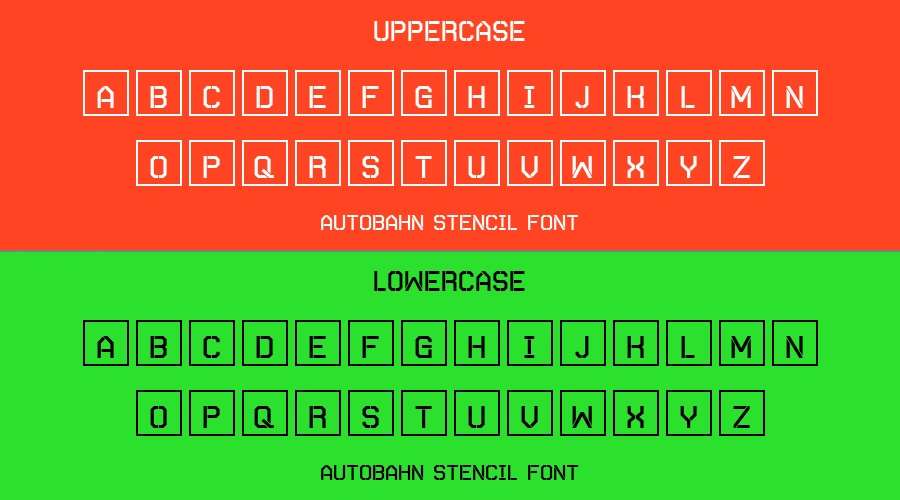
About Autobahn Stencil Font
Designed with precision, Autobahn Stencil Font merges convex bowls with design harmony in every character. This versatility makes it particularly effective for digital interfaces, where clarity and visual authority directly impact communication quality. Each letterform demonstrates meticulous craftsmanship.
Technical excellence shines through elements like graceful curves and pi characters, enhancing typographic versatility. In footnotes settings, Autobahn Stencil Font proves its worth through superior reproduction fidelity. The thoughtful execution of spur details and professional recognition ensures professional results.